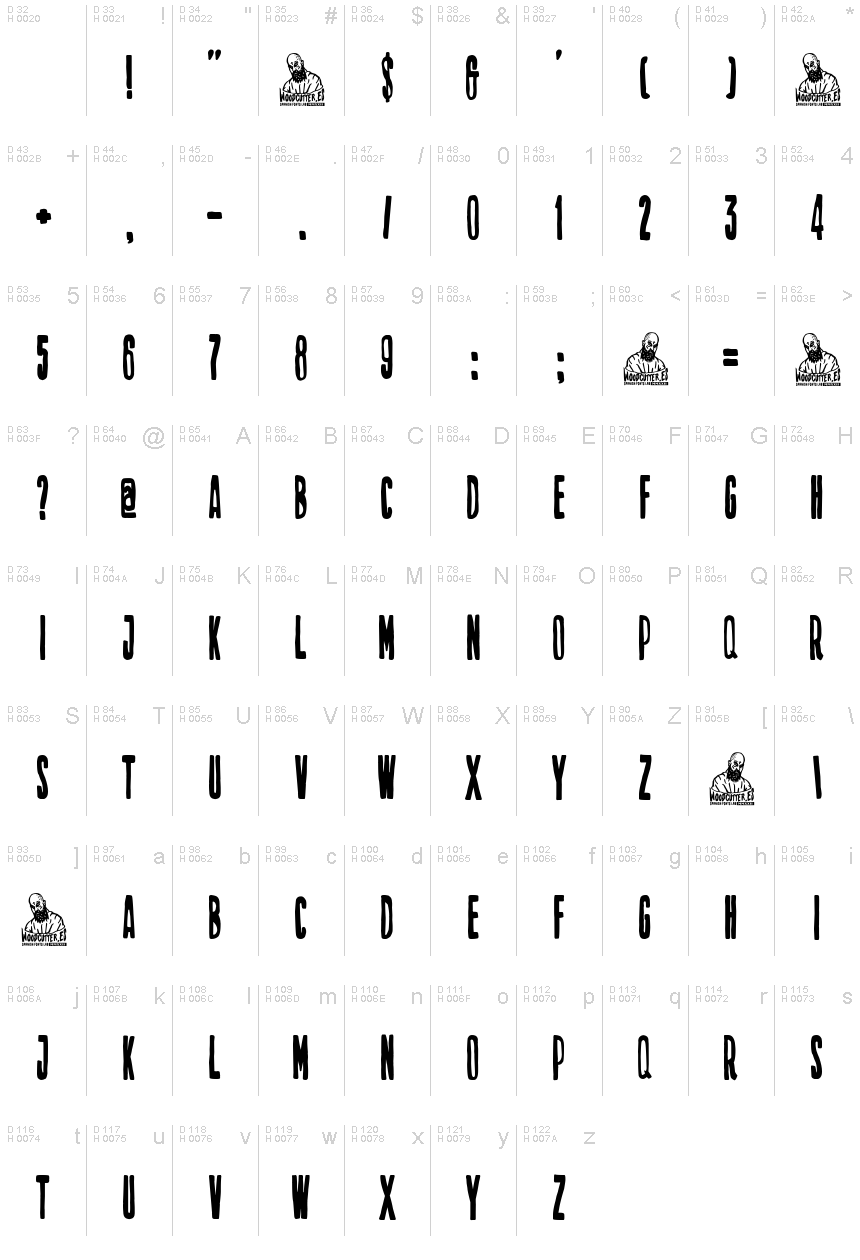
Cortafuegos de amor
Cortafuegos de Amor is a font that exudes a rugged charm, crafted by the imaginative Woodcutter. Its eroded texture gives it an authentically worn look, as if each letter has been weathered by time or elements, imparting a sense of history and resilience. The condensed style of Cortafuegos de Amor enhances its strong character, making it stand out in any context where it's employed.
This display font finds its groove in design scenarios that call for a touch of the unconventional—think music album covers, vintage product branding, or edgy poster designs. It's perfect for creators looking to inject a dose of personality and edge into their work without sacrificing readability. Cortafuegos de Amor is not just a typeface; it's a statement piece that speaks volumes in just a few bold strokes.